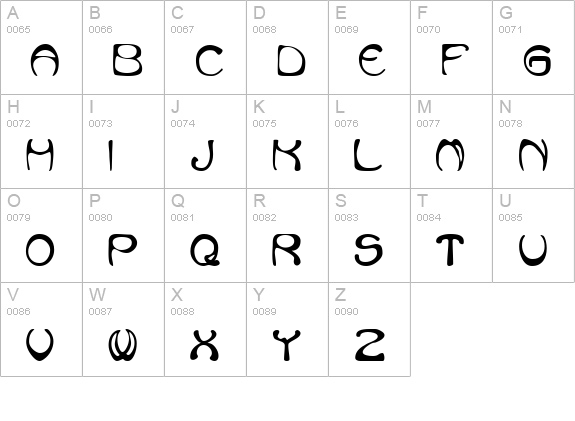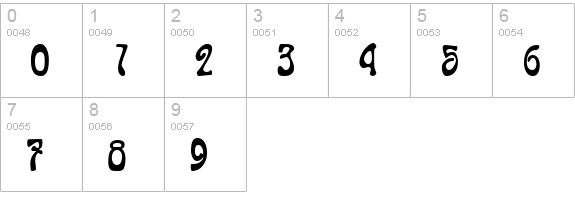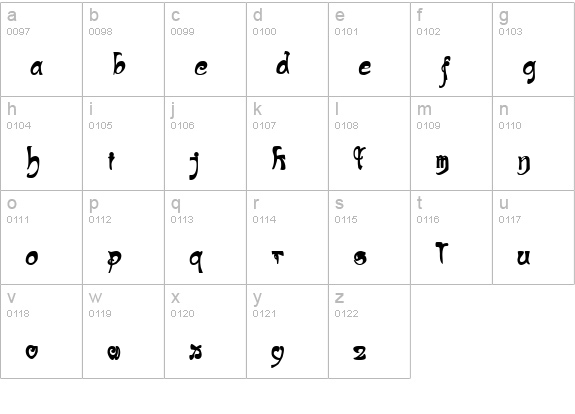
NouveauRiche Heavy Font Details
NouveauRiche Heavy is a heavy, high-impact variant in the NouveauRiche typeface family \xE2\x80\x94 well suited to high-impact headlines, posters, and display advertising.
NouveauRiche Heavy font is a bold and striking typeface that exudes a sense of grandeur and sophistication. With its sleek lines and commanding presence, this font is perfect for creating eye-catching designs that demand attention. The thick, heavy strokes of NouveauRiche Heavy make it ideal for headlines, logos, and other prominent text elements. What sets NouveauRiche Heavy apart is that it is not only visually stunning but also free to download. That's right – you can access this impressive font at no cost on FontsMarket.com. Whether you're a designer looking to elevate your projects or a content creator in need of a powerful font, NouveauRiche Heavy is sure to make a bold statement. Download it today and add a touch of luxury to your work!